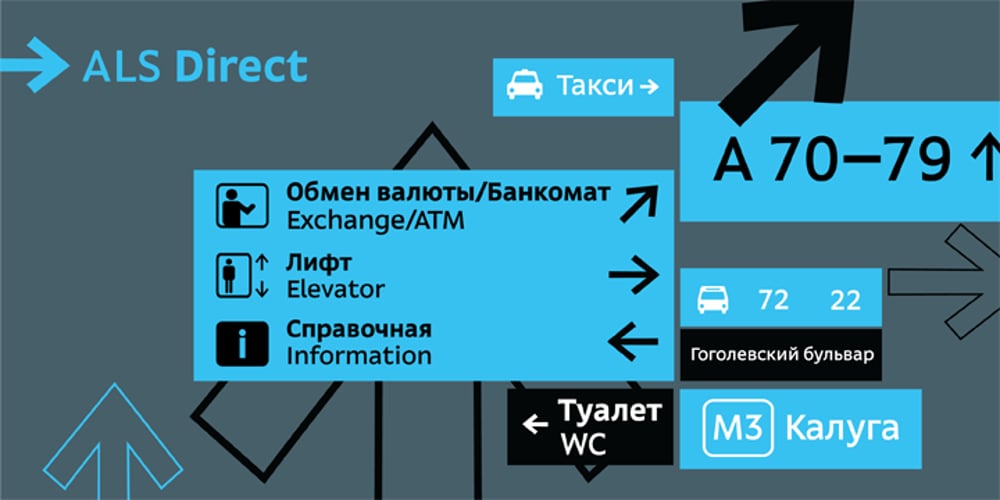
ALS Direct Font Family was designed by Vera Evstafieva and published by Art. Lebedev Studio. ALS Direct contains 9 styles and family package options. ALS Direct is an open and dynamic typeface with clear-cut letterforms that make it instantly readable. It lends text a neutral, yet agreeable and modern feel. Direct has nine font styles convenient for the purposes of navigation signage. Regular-style letterforms are rather wide, because direction signs are likely to appear before readers at an angle, so the type needs to withstand perspective distortions. And as signs and boards may vary in size, Direct was developed to include several width variations. Condensed fonts can be used where horizontal space is limited, allowing you to keep proper height and readability of the characters. A signage typeface must be easily readable from some distance away and have simple letterfoms with clear-cut features to quickly identify characters. Designing a type for a potentially wide range of purposes calls for a universal approach. If not destined to be used for navigation in a particular building, it shouldn’t incorporate any peculiar elements to agree with certain design or architecture. All of the above determined our choice of a sans serif with large apertures and definite features allowing readers to instantly recognize letters. Descenders are made compact not to interfere with the line below. And the low contrast between thick and thin strokes renders all elements equally perceptible. The x-height is significant, close to the cap height, which inhances readability of the lowercase type. There are two reasons why directions must not be set in all caps. Firstly, lowercase letters are more diverse and include ascenders and descenders identifying some of the letters in the line. And secondly, having learned to read, people recognize word shapes rather than individual letters, which makes lowercase text more readable. With Direct being a signage typeface, first to be developed were its width variations, and different weight styles and italics were added later. Another thing to be kept in mind was that signs often use dark background colors, and black type on a white background appears smaller than white type on a black background. Direct is the first Cyrillic typeface created for navigation purposes. Before that, designers could use the Cyrillic version of Frutiger (Freeset) developed by Adrian Frutiger for the Paris Charles de Gaulle International Airport, and a number of other, mostly body copy, neutral sans serif types. However, signs and boards were dominated by Arial, which Direct would be glad to replace offering elegance and lucidity of form instead of type bluntess. Direct was designed as a signage typeface, but its neutral style and clear-cut letterforms suggest various other ways of application.